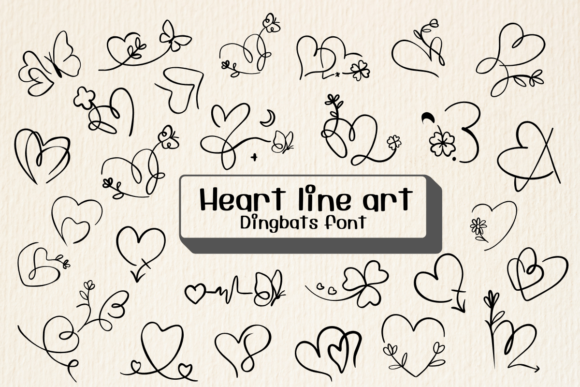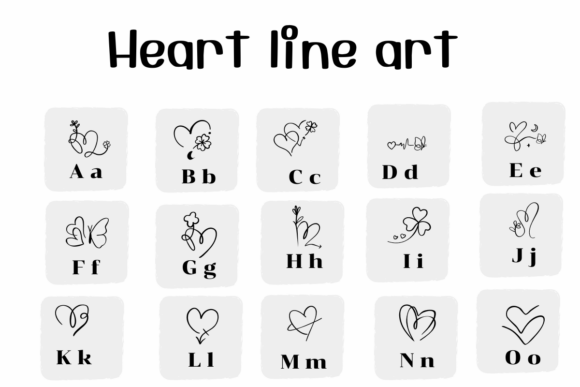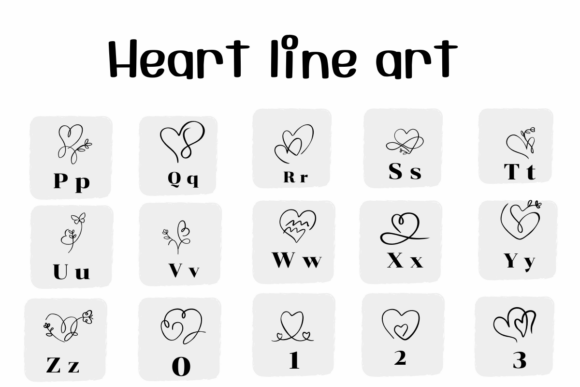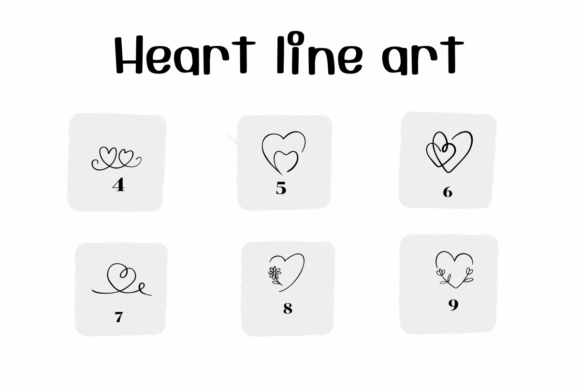
Heart Line Art Font
About the Heart Line Art Font
Make a bold statement with Heart Line Art Font, a powerful and memorable font. Heart line art is a dingbat font with hearts. This font can enhance your creative projects such as wedding invitations, DIY, crafts, decorations, logos, and many other creative ideas.
Heart Line Art excels in applications requiring a lighthearted, romantic touch. It’s ideal for short, impactful designs such as logos for wedding-related businesses, branding for craft shops, or decorative elements on packaging. Use it sparingly in headlines or short phrases on invitations or social media graphics.
However, avoid using it for large blocks of text or body copy; its delicate nature makes it unsuitable for readability in extended passages. It’s also not well-suited for UI design where clear and functional typography is essential.
Pairing it with a clean sans-serif like Open Sans for body text or a classic serif like Garamond for more formal elements creates a pleasing contrast. For a more playful effect, consider pairing it with a handwritten script font like Pacifico. The overall effect depends on the desired level of contrast and balance.
Heart Line Art Font Usage Examples
Heart Line Art Font Example